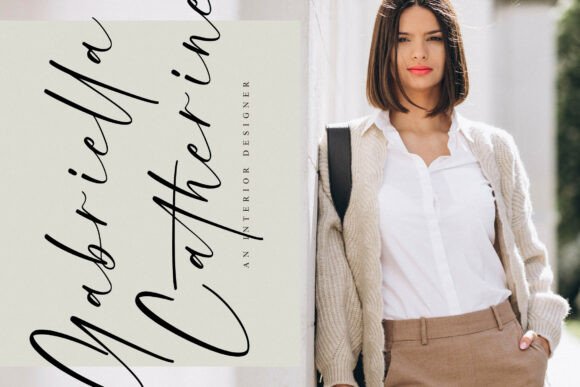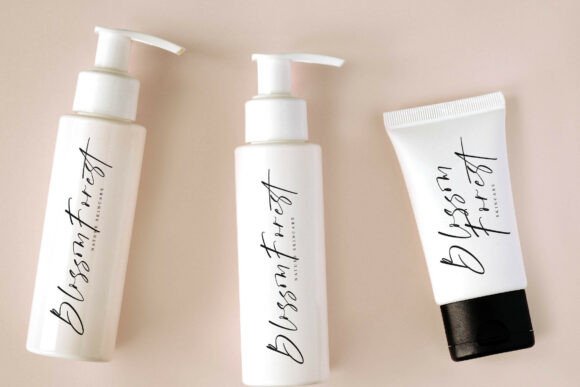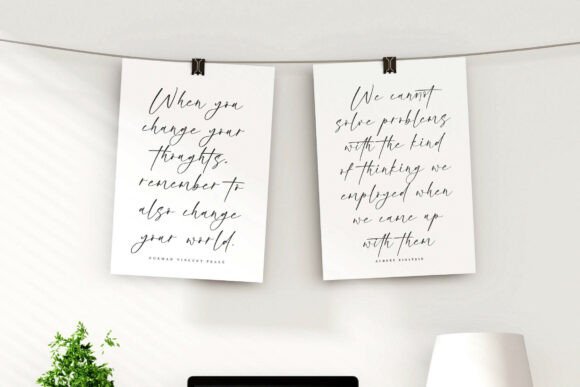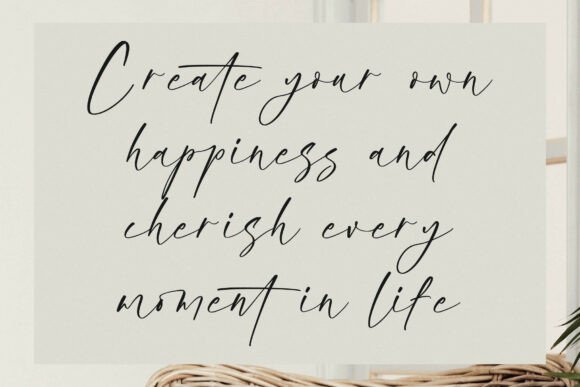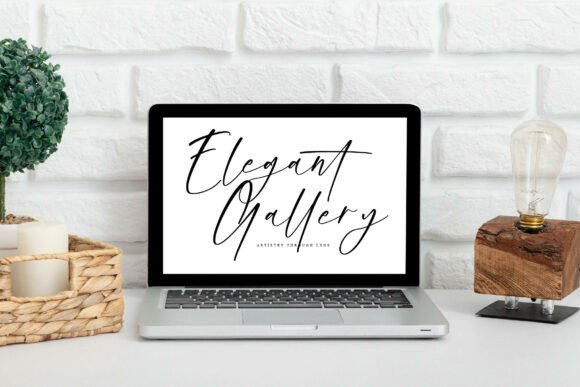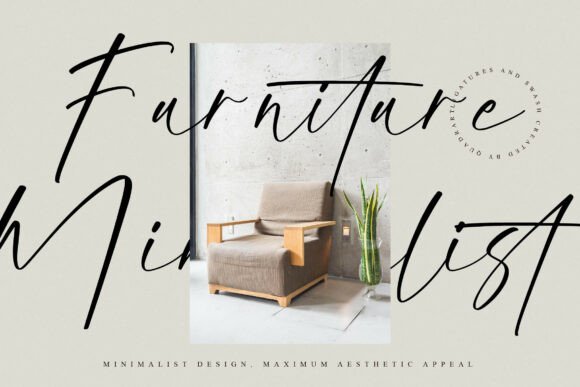
🌟 Elegant & Versatile Script Font for a Luxurious and Captivating Touch 🌟
Are you looking for a font that adds a touch of luxury and elegance to your design projects? Look no further than Blissful Harmony, a script font crafted with a flowing and sophisticated style. Each character is uniquely designed to mimic natural handwriting, giving your text a polished, professional look that’s sure to leave a lasting impression.
✨ Key Features of Blissful Harmony Font
- Elegant and Modern Appeal: Blissful Harmony is ideal for logos, branding, invitations, and other creative designs where a touch of sophistication is desired. Its elegant and modern appeal makes it perfect for designers and crafters looking to elevate their projects.
- Easy to Customize: With alternative characters, ligatures, and swashes, you can easily customize Blissful Harmony to fit your unique style. Add a personal touch to your designs and make them stand out from the crowd.
- Multilingual Support: Blissful Harmony is equipped with international characters, making it suitable for a wide range of languages and projects. Whether you’re designing for a global audience or a specific market, this font has got you covered.
- Responsive Display: This font looks stunning on both small and large screens, in print and digital formats alike. From social media graphics to billboards, Blissful Harmony ensures your message is conveyed with style and sophistication.
💡 Perfect for:
- Branding and Logos: Create a lasting impression with a luxurious and elegant logo that speaks to your brand’s values and personality.
- Invitations: Whether it’s a wedding, birthday, or corporate event, Blissful Harmony adds a touch of class and sophistication to your invitations.
- Social Media Content: Elevate your social media presence with eye-catching graphics and captions that showcase your brand’s unique voice and style.
- Website Headers: Make a statement with your website header, setting the tone for a luxurious and engaging user experience.
- Merchandise Design: From t-shirts to mugs, Blissful Harmony is perfect for designing high-quality merchandise that resonates with your audience.
Why Choose Blissful Harmony Font?
In a world where first impressions matter, having a font that communicates luxury, elegance, and sophistication is crucial. Blissful Harmony offers a unique combination of style, versatility, and customization options, making it an excellent choice for designers and crafters looking to create high-end designs.
Tips and Tricks for Getting the Most Out of Blissful Harmony
- Experiment with Different Sizes: Blissful Harmony looks great in various sizes, from small captions to large headers. Experiment with different sizes to find the perfect fit for your design.
- Mix and Match: Combine Blissful Harmony with other fonts to create a unique and visually appealing design. The elegant and modern appeal of this font makes it easy to pair with other styles.
- Pay Attention to Kerning: To ensure your text looks polished and professional, pay attention to kerning. Adjust the spacing between characters to achieve a harmonious and balanced look.
Blissful Harmony is more than just a font – it’s a design solution that can elevate your projects and leave a lasting impression on your audience. With its elegant and modern appeal, easy customization options, and multilingual support, this script font is perfect for designers and crafters looking to add a touch of luxury and sophistication to their designs. Try Blissful Harmony today and discover a world of creative possibilities!